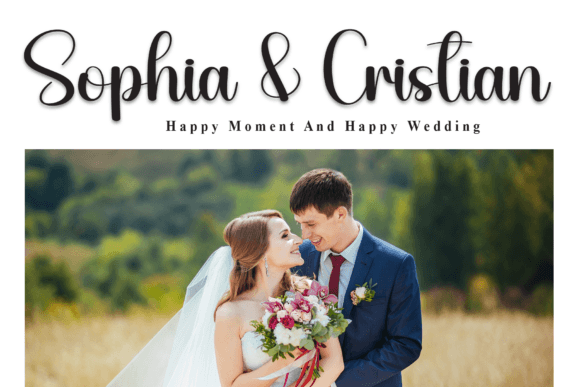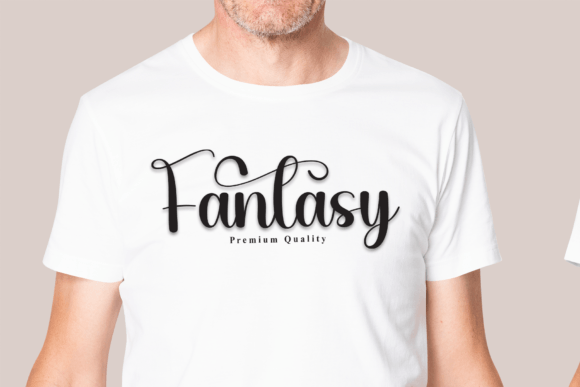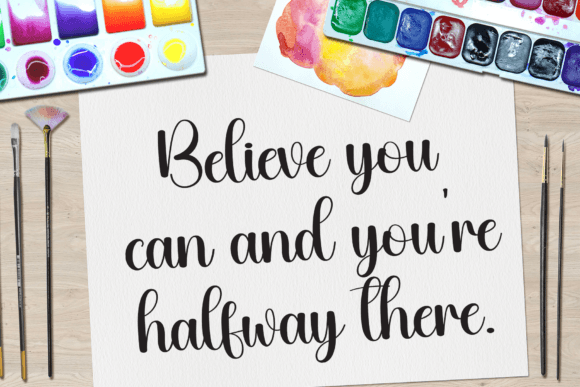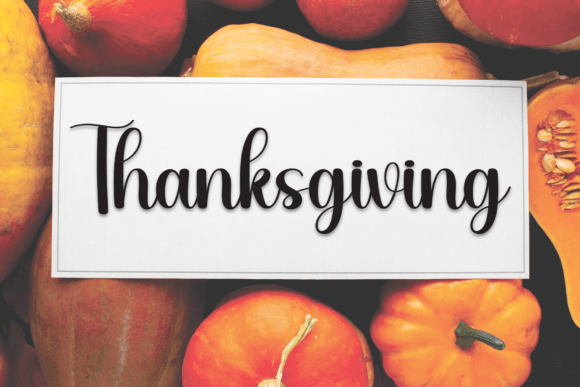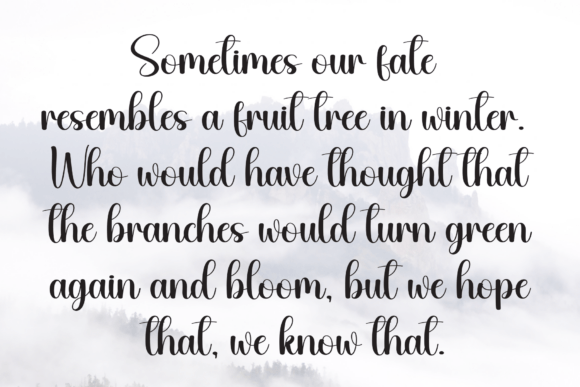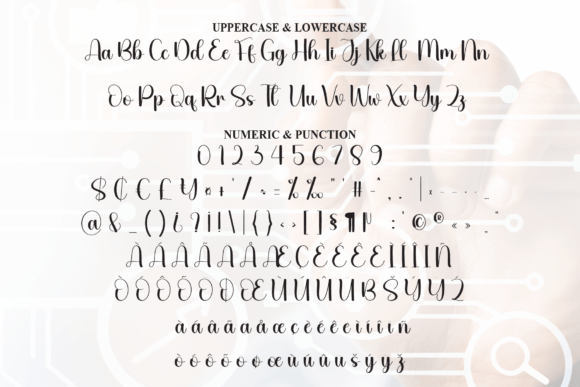
Introducing Digital: A Friendly and Playful Handwritten Font
In the world of digital design, typography plays a crucial role in conveying the tone and personality of a project. When it comes to creating a warm and inviting feel, a well-chosen font can make all the difference. This is where Digital, a beautiful handwritten font, comes into play. With its casual and friendly demeanor, Digital is perfect for personal notes, invitations, and any project where you want to add a touch of personality.
The Characteristics of Digital Font
Digital is a handwritten font that boasts a playful style, characterized by smooth lines and curves. Its casual and friendly appearance makes it an excellent choice for designers and crafters looking to add a personal touch to their projects. The font’s smooth lines and curves ensure that it’s easy to read, making it perfect for a wide range of applications.
Why Choose Digital Font?
So, why should you choose Digital font for your next project? Here are a few compelling reasons:
- Warm and Inviting Feel: Digital font is designed to evoke a sense of warmth and friendliness, making it perfect for personal notes, invitations, and other projects where you want to create a cozy atmosphere.
- Playful Style: The font’s playful style, with smooth lines and curves, adds a touch of whimsy to any project, making it ideal for designers and crafters who want to create something unique and eye-catching.
- Easy to Read: Despite its playful nature, Digital font is incredibly easy to read, making it perfect for body text, headings, and other applications where legibility is crucial.
- Versatile: Digital font can be used for a wide range of projects, from personal notes and invitations to blog posts, social media graphics, and more.
Digital font is a versatile and user-friendly font that’s perfect for designers and crafters alike. Whether you’re creating:
- Personal Notes: Add a touch of personality to your personal notes and letters with Digital font.
- Invitations: Create beautiful and unique invitations for special occasions, such as weddings, birthdays, and more.
- Blog Posts: Use Digital font to add a touch of warmth and personality to your blog posts and articles.
- Social Media Graphics: Create eye-catching social media graphics, such as Facebook posts, Instagram stories, and more, with Digital font.
Tips for Using Digital Font
To get the most out of Digital font, here are a few tips to keep in mind:
- Pair with Other Fonts: Experiment with pairing Digital font with other fonts to create a unique and eye-catching combination.
- Use for Headings and Body Text: Use Digital font for both headings and body text to create a cohesive and visually appealing design.
- Adjust Font Size and Color: Experiment with different font sizes and colors to add visual interest and emphasis to your design.
In conclusion, Digital font is a beautiful and versatile handwritten font that’s perfect for designers and crafters looking to add a touch of warmth and personality to their projects. With its playful style, smooth lines, and curves, Digital font is easy to read and perfect for a wide range of applications. Whether you’re creating personal notes, invitations, or social media graphics, Digital font is an excellent choice.